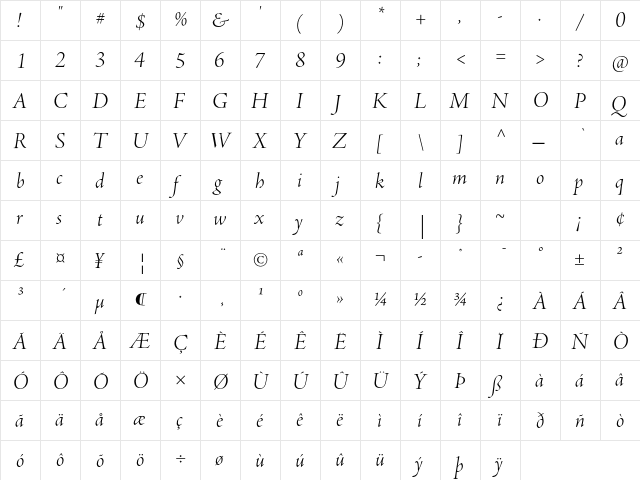
Adobe Jenson Pro Light Italic Display Font Preview
| Style | Light Italic Display |
| Designer | Robert Slimbach |
Design Context for Adobe Jenson Pro Typeface
Adobe Jenson Pro brings ornamental detail and strong personality to headlines and identities, where visual impact matters more than quiet functionality. The dynamic lean of this cut emphasises speed and emphasis in any layout. Its slender proportions lend an understated elegance to any composition.
Font Pairing: Pair with a clean neutral sans-serif for body copy to let Adobe Jenson Pro's character lead without overwhelming the composition.
Pro Tip: Treat Adobe Jenson Pro as the centrepiece of your typographic hierarchy. One strong heading set in a decorative face can carry an entire layout.